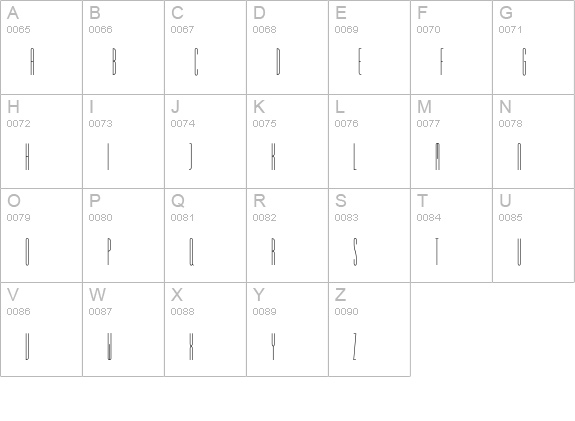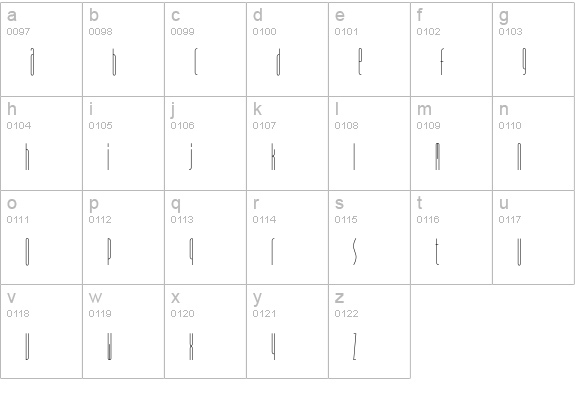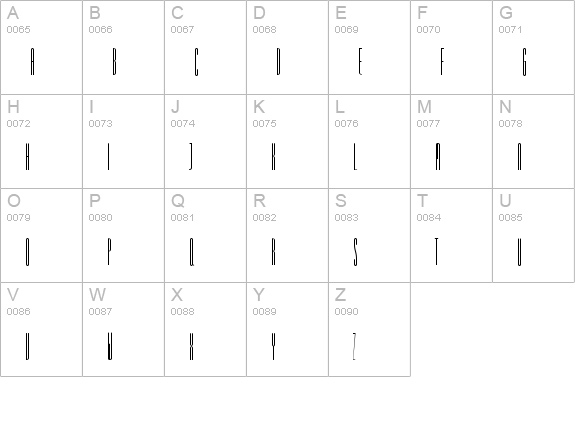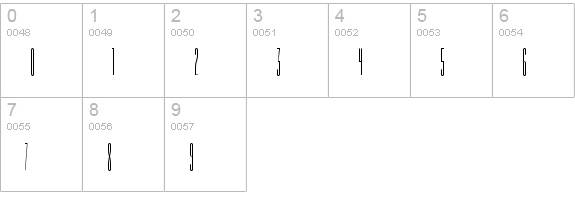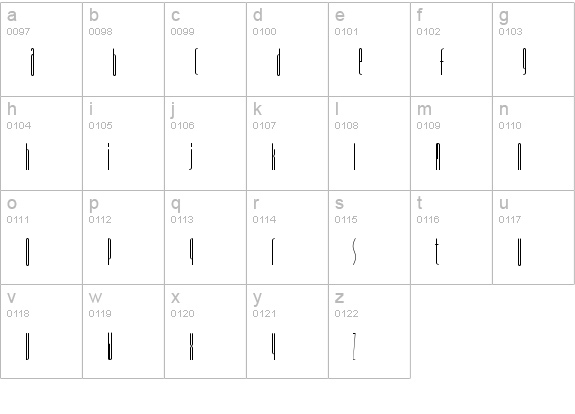
SpiritEF-Regular Font Details
SpiritEF-Regular is the standard, neutral variant in the SpiritEF typeface family \xE2\x80\x94 well suited to general body text, paragraphs, and standard typographic work.
SpiritEF-Regular is a stunning and versatile font that exudes a timeless elegance. Its clean and balanced letterforms make it perfect for a wide range of design projects, from branding and logos to headings and body texts. This font's refined and sophisticated appearance is bound to captivate any audience. With its easily legible strokes and graceful curves, SpiritEF-Regular effortlessly combines both modernity and tradition. The carefully crafted details give this font a unique personality, making it stand out among the crowd. Whether you're working on a contemporary or classic design, SpiritEF-Regular is sure to elevate your project to new heights. One of the best features of SpiritEF-Regular is that it is free to download. Yes, you read it right - this remarkable font is freely available for download at FontsMarket.com. This means that you can enjoy the beauty and versatility of SpiritEF-Regular without having to spend a dime. It's a fantastic opportunity to add a touch of elegance and sophistication to your design work, all while staying within your budget. So why wait? Head over to FontsMarket.com and grab your free copy of SpiritEF-Regular today. With its timeless appeal and unmatched versatility, this font promises to be a valuable addition to your design toolkit. Don't miss out on the opportunity to elevate your creations with the stunning SpiritEF-Regular font. Download it now and let your creativity soar!